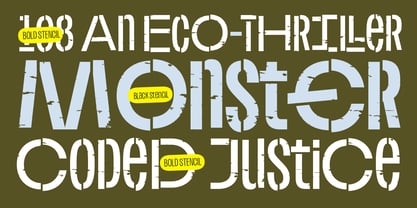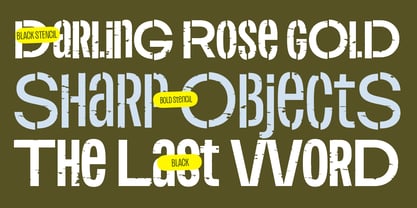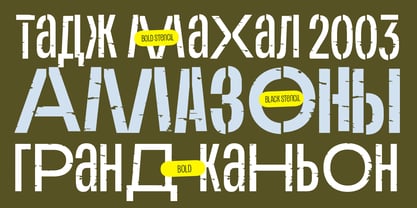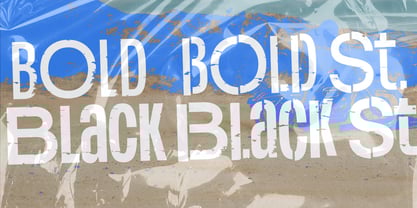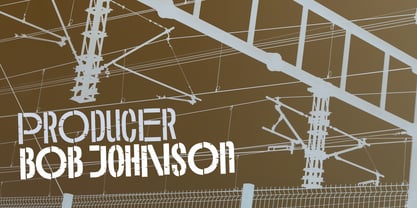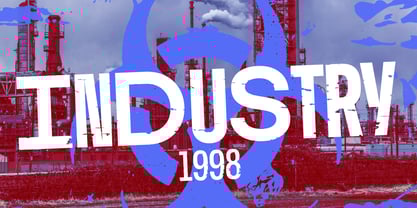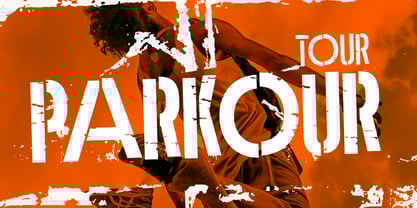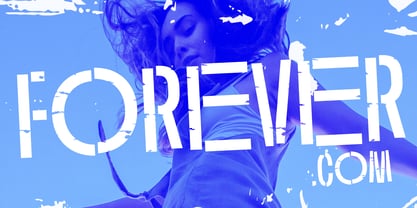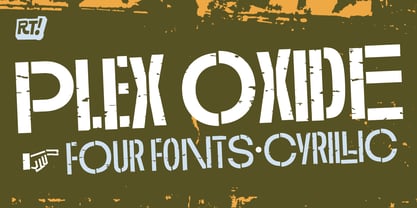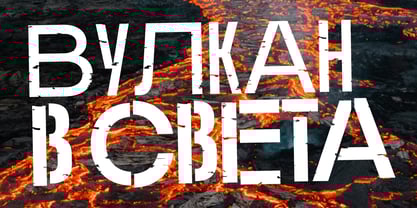
Plex Oxide
by RodrigoTypo
The Plex Oxide Font Family was designed by Rodrigo Araya Salas and published by RodrigoTypo. Plex Oxide contains 4 styles and family package options. More about this family
Plex Oxide, a version of "Plex Beta" with textures and contains only 4 styles, Bold, Bold Stencil, Black, Black Stencil, perfect for action and thriller titles, contains Cyrillic alphabet in addition to expanding capitalization alternatives
Designers: Rodrigo Araya Salas
Foundry: RodrigoTypo